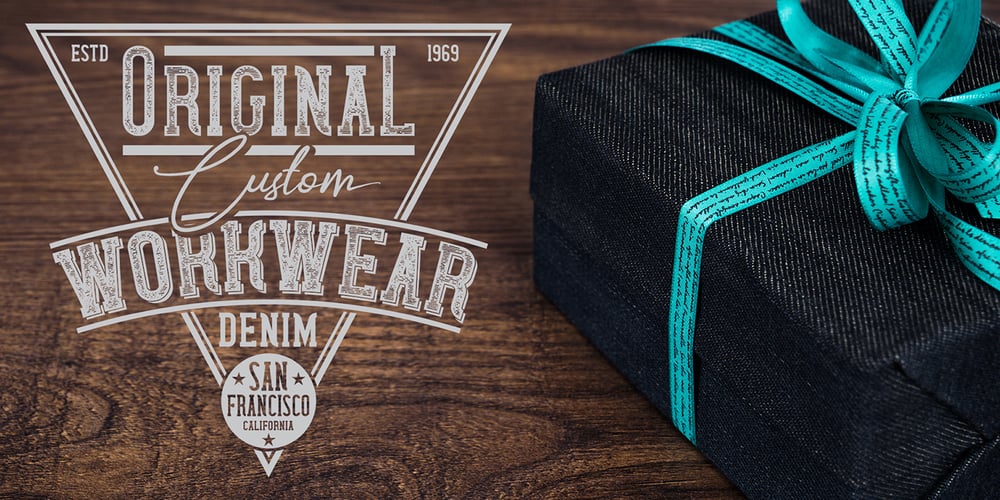
Wanted Denim Font Family was designed by Oleg Voznyy and published by Vozzy. Wanted Denim contains 6 styles and family package options. Introducing a vintage look layered label font named “Wanted Denim”. This font was inspired by classic slab serif fonts from denim labels and logos. Typeface includes six styles (including effect styles), for sample look at 3rd preview. This font will good viewed on any retro design like poster, t-shirt, label, logo etc.